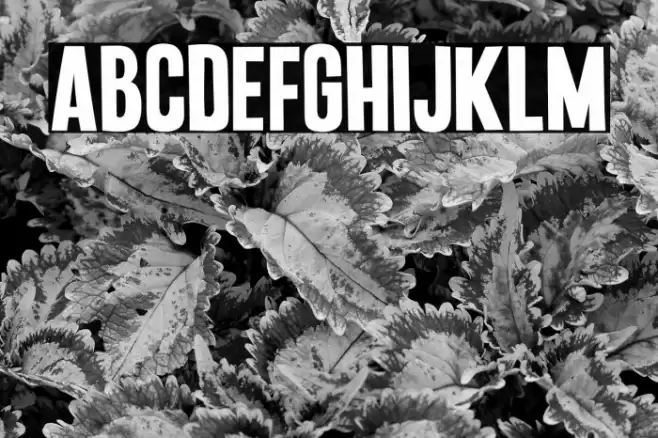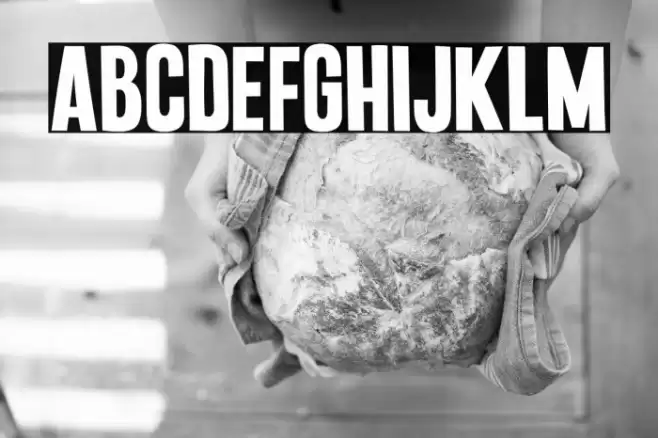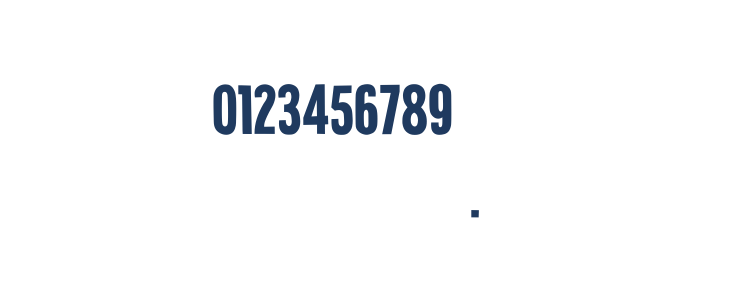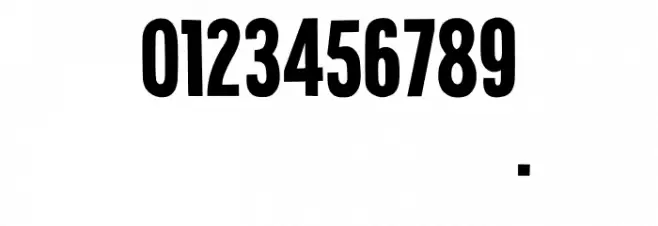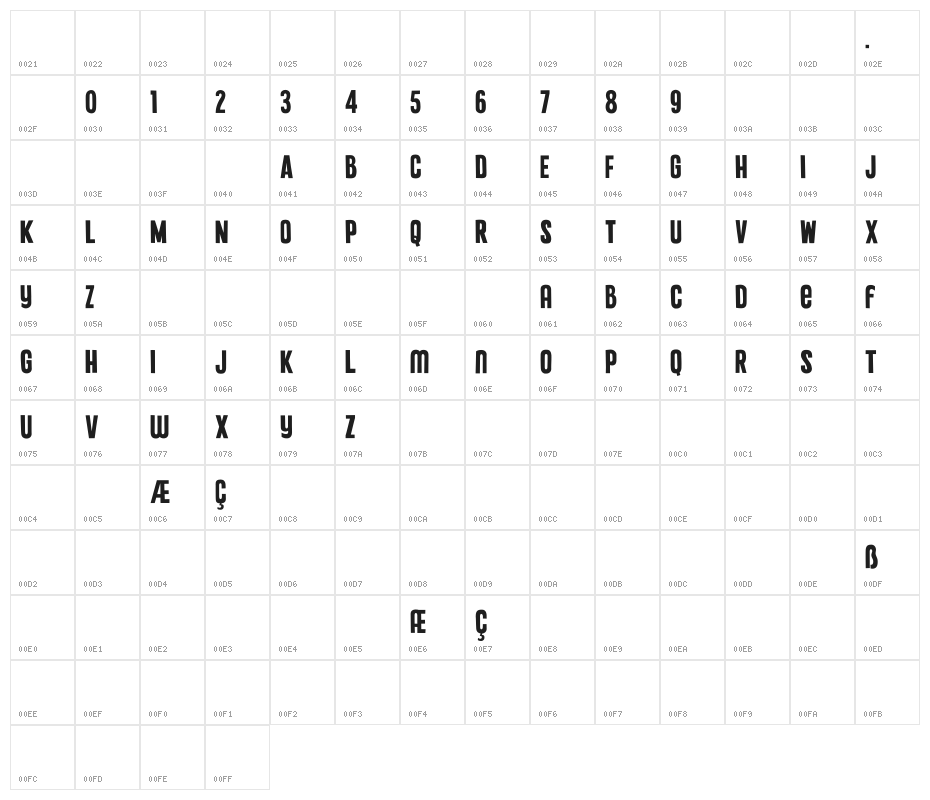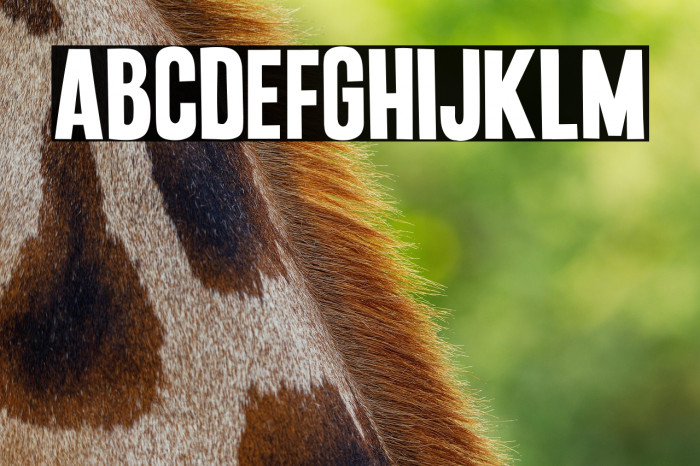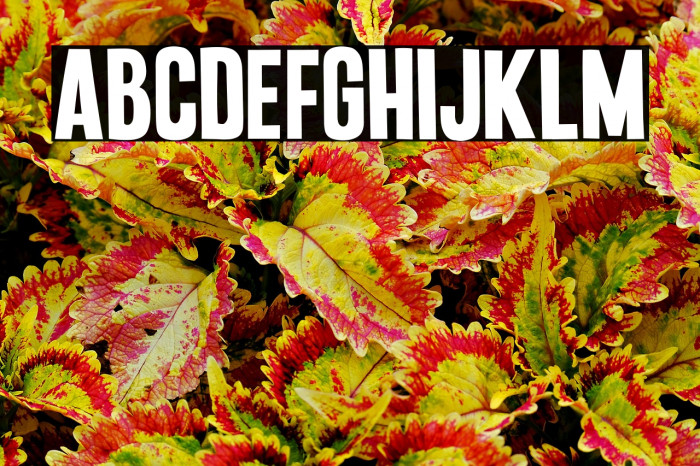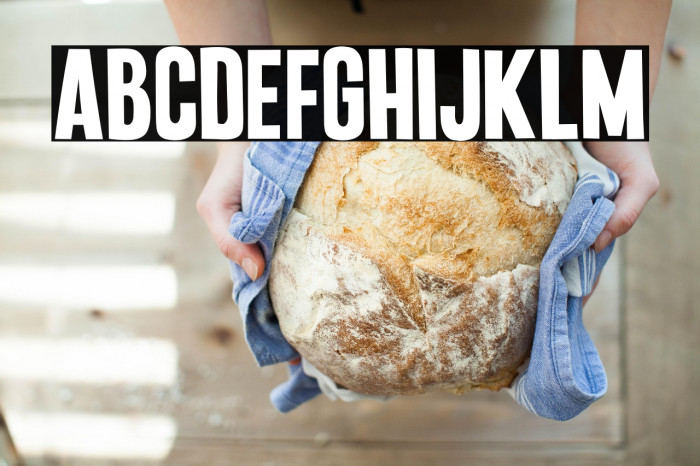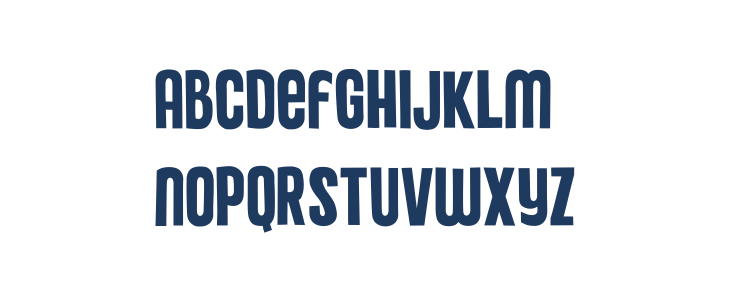
Punkaholic Font
Punkaholic Description
This font features a bold and impactful design with thick, uniform strokes that give it a strong presence. The characters are slightly condensed, enhancing its boldness and making it ideal for attention-grabbing headlines. The uppercase letters are particularly striking, with a consistent height and width that contribute to a cohesive look. The numbers and special characters maintain the same bold style, ensuring consistency across all text elements. The overall style is modern with a touch of vintage flair, making it versatile for various design projects.
A bold, condensed font with a modern yet vintage style, perfect for impactful headlines from Uncategorized fonts.
- Font: Punkaholic
- Proposed Projects: Ideal for posters, branding, and any project requiring a strong visual impact.
- Overall Style: Modern, Vintage